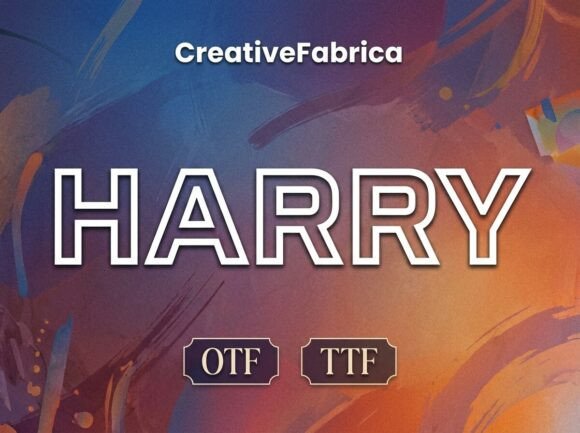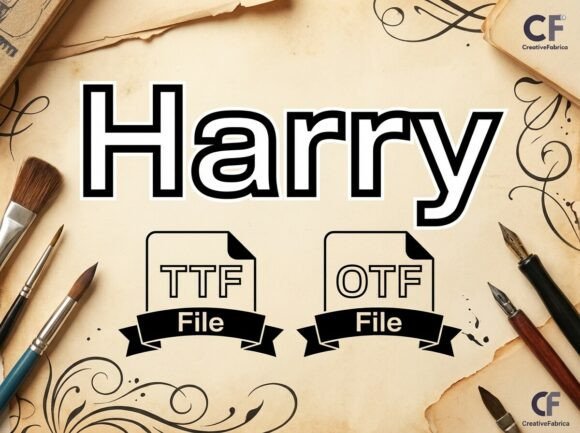
Introducing Harry Font: The Ultimate Decorative Display Font
Are you tired of using the same old fonts in your designs? Look no further than Harry Font, a stunning decorative display font that’s sure to turn heads. With its unique artistic elements and strong visual personality, this font is perfect for creators who want to break away from the ordinary and make a statement.
Harry Font is designed to be the center of attention, featuring intricate details and creative letterforms that are sure to grab the viewer’s eye. Whether you’re designing a modern poster, a unique brand identity, or eye-catching social media content, this font adds an instant “wow” factor to any project. Its versatility makes it perfect for bold headlines, artistic logos, and creative packaging, while maintaining a professional and polished finish.
Harry Font is ideal for a variety of design applications, including:
- Poster Design: Create headlines that people can’t look away from. With Harry Font, you can add a touch of drama and excitement to your posters, making them perfect for advertising, events, or promotions.
- Branding & Logos: Build a unique identity for creative businesses. This font is perfect for companies that want to stand out from the crowd and establish a strong visual presence.
- Apparel & Merch: Perfect for T-shirts, hoodies, and tote bag designs. Add a touch of personality to your apparel and merchandise with Harry Font’s unique and creative letterforms.
- Social Media: Make your quotes and announcements stand out in the feed. With Harry Font, you can add a touch of glamour and sophistication to your social media content, making it perfect for influencers, bloggers, or businesses.
- Packaging: Give your products a premium feel with Harry Font’s elegant and refined design. Perfect for luxury brands, food and beverage packaging, or high-end products.
Key Features of Harry Font
So what makes Harry Font so special? Here are just a few of its key features:
- Unique Artistic Elements: Harry Font features unique artistic elements that set it apart from other fonts. Its creative letterforms and intricate details make it perfect for designs that need to stand out.
- Strong Visual Personality: This font has a strong visual personality that demands attention. Its bold and confident design makes it perfect for headlines, titles, and other display text.
- Versatile: Harry Font is versatile enough for a variety of design applications, from bold headlines to artistic logos and creative packaging.
- Professional and Polished Finish: Despite its creative and artistic design, Harry Font maintains a professional and polished finish that’s perfect for businesses and brands.
Tips for Using Harry Font
Here are a few tips for getting the most out of Harry Font:
- Use it sparingly: Because Harry Font is so bold and attention-grabbing, it’s best to use it sparingly. Use it for headlines, titles, or other display text, and pair it with a simpler font for body text.
- Experiment with colors: Harry Font looks great in a variety of colors, so don’t be afraid to experiment. Try using it in bold, bright colors or more subtle, muted tones.
- Pair it with images: Harry Font looks great when paired with images or graphics. Try using it to add text to a photo or illustration, or to create a bold and eye-catching graphic.
Harry Font is a stunning decorative display font that’s perfect for designers and crafters who want to add a touch of personality to their designs. With its unique artistic elements, strong visual personality, and versatility, this font is sure to become a go-to in your design arsenal. Whether you’re designing a modern poster, a unique brand identity, or eye-catching social media content, Harry Font is the perfect choice.